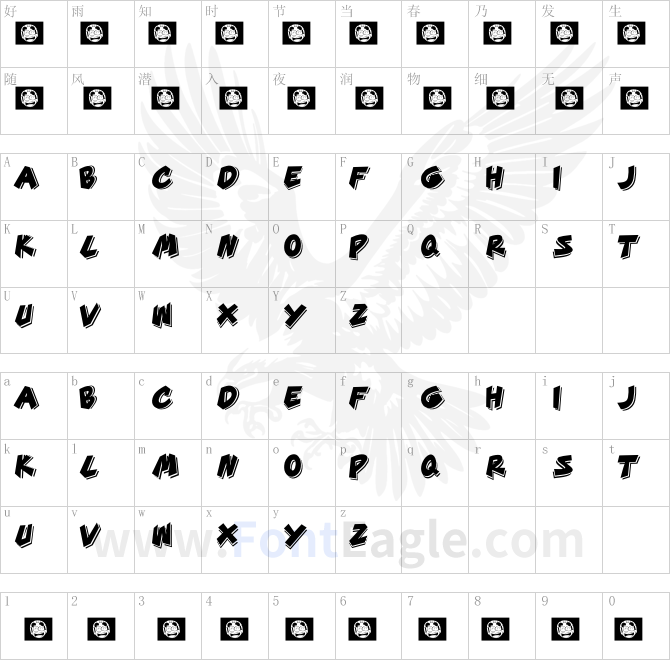
- Font name:GOOD TIME
- Font Subfamily ID:GOOD TIME
- Font Full Name:GOOD TIME
GOOD-TIME is a great font, widely used in graphic design, single-page menu design, poster design and other fields, and is deeply loved by designers.GOOD-TIME download.